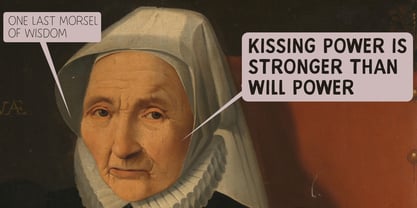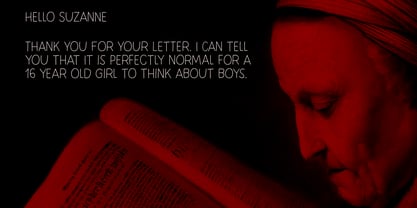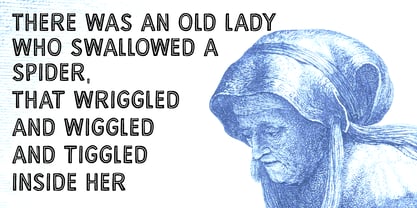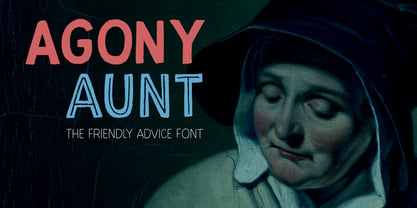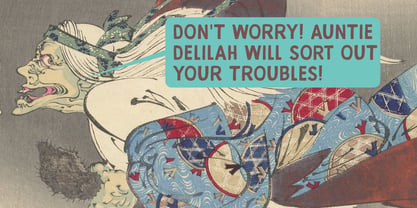
Agony Aunt
por Hanoded
A família de fontes Agony Aunt foi desenhada por David Kerkhoff e publicada pela Hanoded. Agony Aunt contém 6 estilos e opções de pacote familiar. Saiba mais sobre esta família
An Agony Aunt is a British term, which describes a media personality who reads and answers people’s letters. Right now, it is also a very nice, handmade font family. I can’t promise it will give you sound advice on any issues you may have, but it sure will liven up your designs.
Agony Aunt comes in three distinct styles, each with Italics. Give Agony Aunt a try: I am sure you'll be happy!